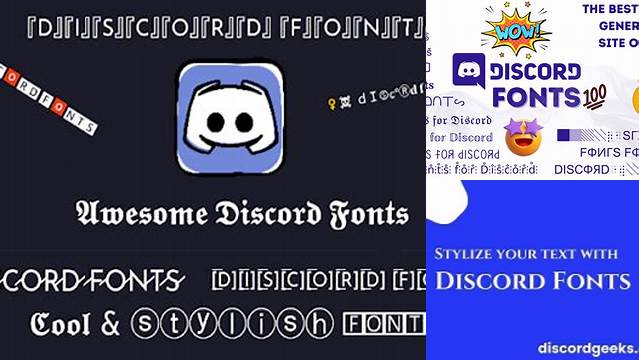
Cool Discord Fonts: Generate & Customize Your Text!
Hey guys! Ever wanted to spice up your Discord profile or messages with some super cool fonts? Well, you're in the right place! We're diving deep into the world of the Discord fonts generator, exploring how you can make your text stand out and grab some serious attention. Forget plain text; it's time to transform your words into eye-catching masterpieces. Let's get this party started and learn all about how to use a Discord fonts generator to level up your game!
H2: What Exactly Is a Discord Fonts Generator?
Alright, so what exactly is a Discord fonts generator? Think of it as your secret weapon for text customization on Discord. It's a nifty online tool that takes your regular text and magically transforms it into a variety of stylish and unique fonts. You simply type your message into the generator, and it spits out the same text in dozens of different styles – from bold and italic to fancy cursive and even some wacky, upside-down options. It's like having a whole font library at your fingertips, ready to be used without downloading anything! The cool thing is, these generators don't actually change the font itself within Discord; they use Unicode characters to create the visual effect. This means your friends can see the fancy fonts even if they don't have the same fonts installed on their computers. That's the magic of the Discord fonts generator at work! This method ensures compatibility across all devices and platforms, so everyone can enjoy your creatively styled messages. These generators are generally super easy to use. They offer a simple interface, where you just paste in the text you want to transform, select your desired style, and copy the output. The process is straightforward, which makes them accessible for anyone, regardless of their technical skills. From casual chats to creating a unique server profile, a Discord fonts generator has got you covered. Whether you want to add emphasis to a particular point, create visually appealing server announcements, or simply express your personality with some flair, these generators empower you with a versatile range of creative tools. It’s all about expressing yourself and making your text visually appealing, and the Discord fonts generator offers the perfect way to do so.
H3: Exploring the Different Types of Font Styles Available
When it comes to fonts, a Discord fonts generator is a treasure trove of options! Let's dive into the most popular and frequently used styles to spice up your texts. First, you have your classic bold and italic fonts – the workhorses of text emphasis. These are fantastic for highlighting important information or adding a touch of sophistication. Next, we have fancy cursive fonts that add a touch of elegance and flair to your messages, ideal for conveying a more personal or artistic feel. Then, there are the monospace fonts, where each character occupies the same horizontal space, which is handy for code snippets or creating a clean, structured layout. Next up: the bubble fonts. These will give your text a playful, cartoonish vibe, perfect for casual chats or adding a touch of whimsy. Also, you can get some creative options like the upside-down fonts. These will add a touch of humor and novelty. There are also a lot of other, more elaborate styles, such as the special characters or text art, which provide unique and unconventional fonts that really set your messages apart. Each style comes with its own distinct personality, so you can choose the perfect look to match your message's tone and intent. Experimentation is key, so don't be afraid to explore all the different styles available in the Discord fonts generator. Finding the perfect font style allows you to add a layer of visual interest to your messages. It can communicate a range of emotions, from playful to serious, simply through the aesthetic choice of font. The best part? With a Discord fonts generator, you can easily switch between styles until you find the perfect one that suits your content.
H2: How to Use a Discord Fonts Generator: A Step-by-Step Guide